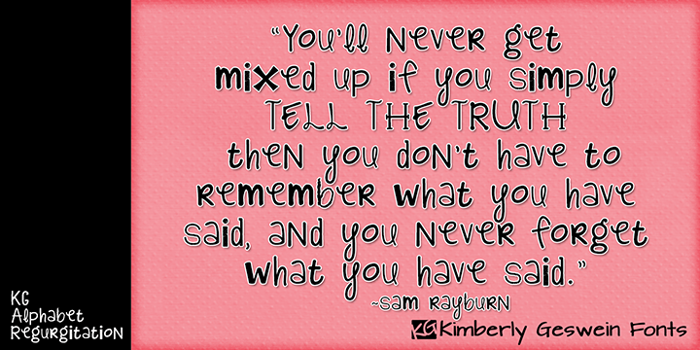
KG Alphabet Regurgitation Font
KG Alphabet Regurgitation Font is a Ransom Note font and was created on . Since then, it has been downloaded 5,302 times and added to 101 collections. 6 people have liked KG Alphabet Regurgitation Font and given it a thumbs up.
Mixed-up crazy lettering. Free for personal use. Please pay for commercial use. See enclosed TOU file for details. Thanks!